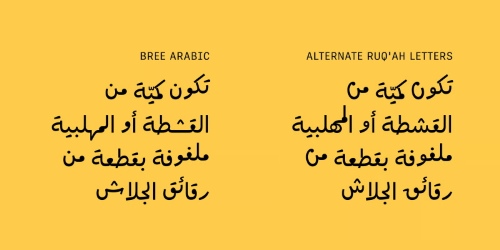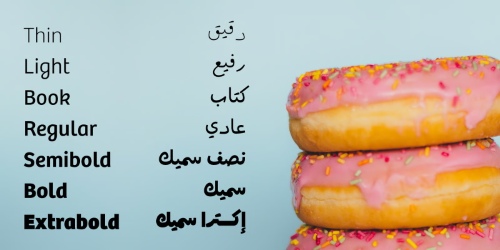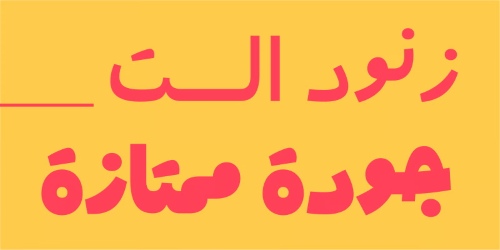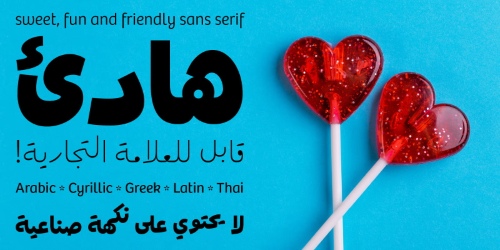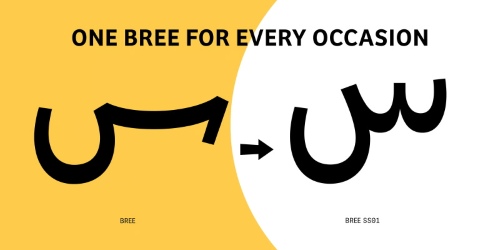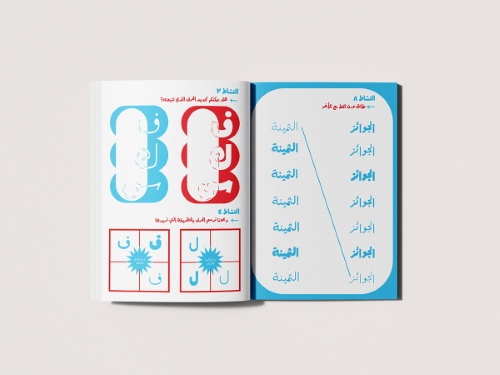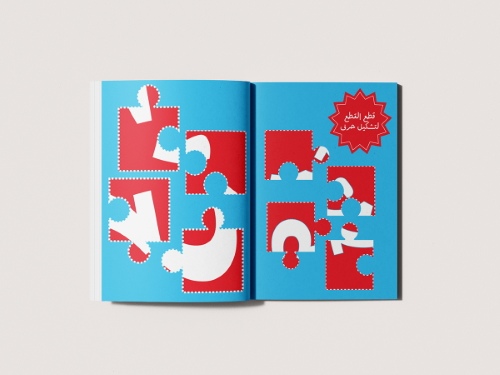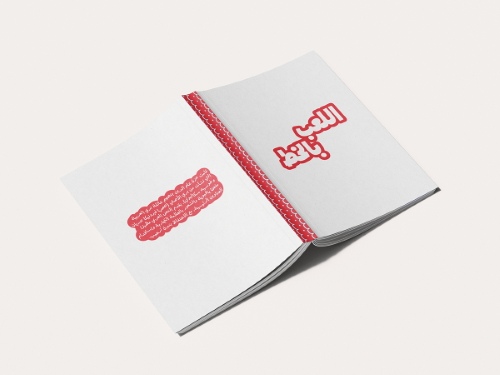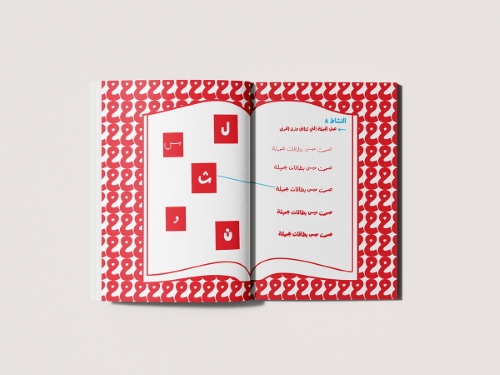
Bree Arabic - 7 Styles Font Family
- The Bree Arabic font family is Azza Alameddine’s spry companion to the original Bree design by Veronika Burian and José Scaglione. The Arabic script delivers a spirited look and feel for branding and headline usage, while retaining a welcoming tone in paragraph text.
- Since Bree Latin is clearly influenced by handwriting, its Arabic counterpart is based on Ruq’ah, the informal handwriting style used for Arabic. Not only does this complement the other established scripts, it gives text a lively and approachable appearance in paragraphs with fluid shapes and measured flourishes. Bree Arabic combines self-assuredness with joviality, and glyph alternates are available when a slight change in tone is desired. All this adds up to a big personality, so even when set in small text there is no skimming past the words Bree voices.
- In 2019, the Bree font family got a huge update. A few shapes were updated or added (the ‘k’ and German capital ‘ß’), two entirely new weights were added (Book and Book Italic), and spacing was perfected. More than that, Vietnamese support was added to Bree Latin, and the Bree Greek and Bree Cyrillic scripts were designed from scratch to parallel the Latin’s tone. Arabic and Thai scripts were added in 2021, along with Pinyin and refined Vietnamese diacritics being added to the Latin, and Devanagari is currently under development. Additionally, Bree was designed in the variable font format for those who want complete control over the font’s appearance while simultaneously saving digital weight in the form of megabytes. This puts Bree in the perfect position for the next digital revolution.
- The complete seven weight Bree Arabic font family, along with our entire catalogue, has been optimised for today’s varied screen uses. Bree has been chosen for such wide-ranging uses as the branding for the country of Peru, Breast Cancer Awareness Month in the US, organic food brands, and numerous layouts including mobile apps, newspapers, online magazines, and books. Be sure to check out the other scripts in the full multiscript Bree family: Latin (including Pinyin and Vietnamese), Cyrillic, Greek, and Thai.